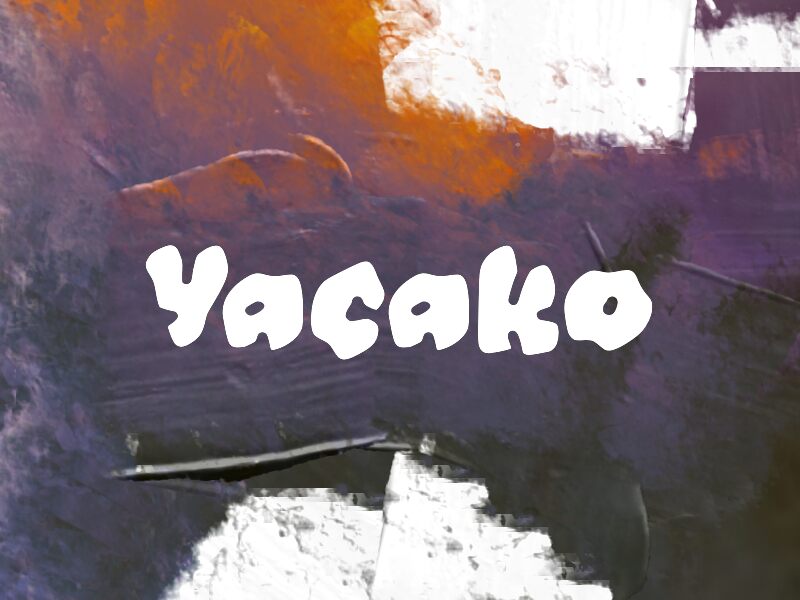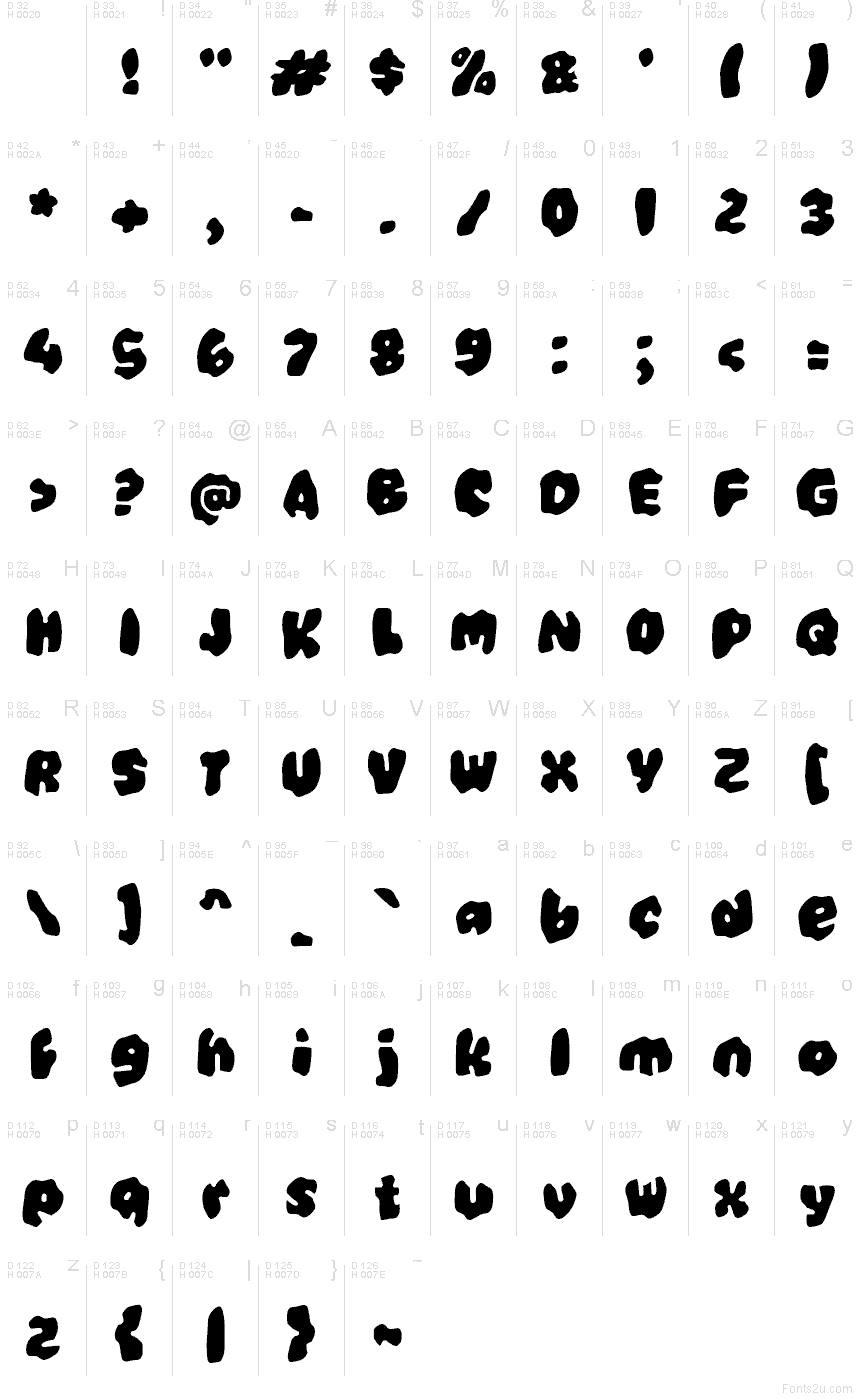
Yacako font by wepfont.com is a free distorted display typeface that looks like letters poured in thick, inky syrup and left to wobble into shape. Each character swells and slumps with soft, bulging edges, giving words a gooey, almost liquid presence on the page. The rhythm is loose and organic, so text feels wild and unpredictable, yet still readable enough to carry a strong, playful message.
Using Yacako, headlines feel loud, sticky, and a little unhinged-great for horror posters, Halloween party flyers, underground music covers, game titles, edgy stickers, and streetwear branding. This free font shines at large sizes where its blobby silhouettes can really ooze. Pair it with a clean, narrow sans serif for body text to keep the chaos contained and the concept clear.
Yacako